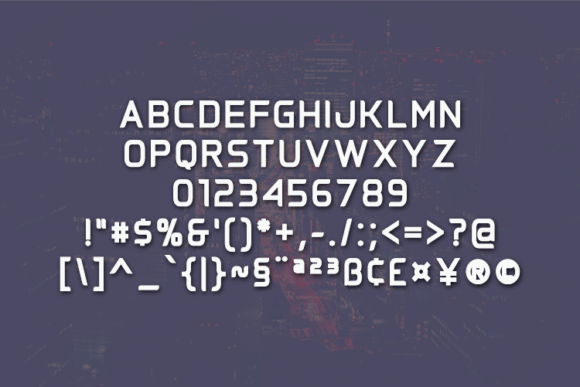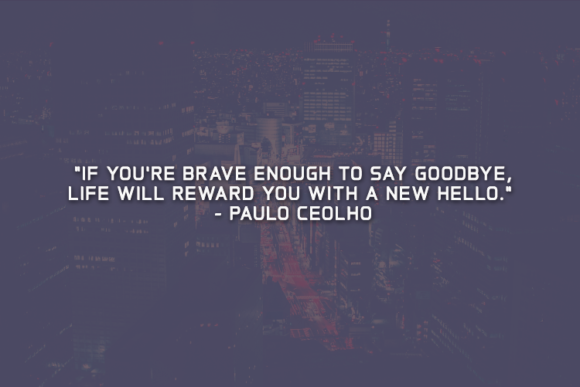
Eistelop Font: The Ultimate Minimalist Sans Serif for Your Designs
In the world of typography, finding the perfect font can be a daunting task, especially with the numerous options available. However, if you’re looking for a minimal yet elegant sans serif font that can elevate your designs, look no further than Eistelop. This stunning font is designed to cater to a wide variety of designs, making it an excellent addition to your font library.
The Beauty of Minimalism
Eistelop’s minimalist design is one of its standout features. The font boasts clean lines, simple shapes, and a neat style that exudes elegance. This subtle yet sophisticated design makes it perfect for designers and crafters who want to add a touch of refinement to their work. Whether you’re creating a logo, brochure, or website, Eistelop’s understated charm will surely impress.
One of the most significant advantages of Eistelop is its versatility. This font can be used in a wide range of designs, from modern and edgy to classic and sophisticated. Its simplicity allows it to blend seamlessly with various design styles, making it an excellent choice for:
- Print materials, such as brochures, flyers, and posters
- Digital platforms, including websites, social media, and mobile apps
- Crafting and DIY projects, like invitations, cards, and scrapbooking
Why Eistelop Will Become Your Go-To Font
Eistelop’s unique combination of minimalism and elegance makes it an attractive option for designers and crafters. Here are a few reasons why Eistelop has the potential to become your favorite go-to font:
- Easy to read: Eistelop’s clear and simple design ensures that your text is always legible, even at small font sizes.
- Highly versatile: As mentioned earlier, Eistelop can be used in various designs, making it an excellent addition to your font library.
- Timeless appeal: Eistelop’s minimalist design ensures that it won’t go out of style anytime soon, making it a great investment for your design needs.
Tips for Using Eistelop Effectively
To get the most out of Eistelop, here are a few tips to keep in mind:
- Pair it with contrasting fonts: Combine Eistelop with a bold or script font to create visual interest and add depth to your design.
- Experiment with font sizes: Eistelop’s clear design makes it suitable for use at various font sizes, from headings to body text.
- Use it consistently: To maintain brand consistency, use Eistelop across all your design materials.
Eistelop is a stunning sans serif font that offers the perfect blend of minimalism and elegance. Its versatility, readability, and timeless appeal make it an excellent choice for designers and crafters. Whether you’re working on a logo, website, or crafting project, Eistelop is sure to become your go-to font. With its neat and simple style, Eistelop has the potential to elevate your designs and take your work to the next level.